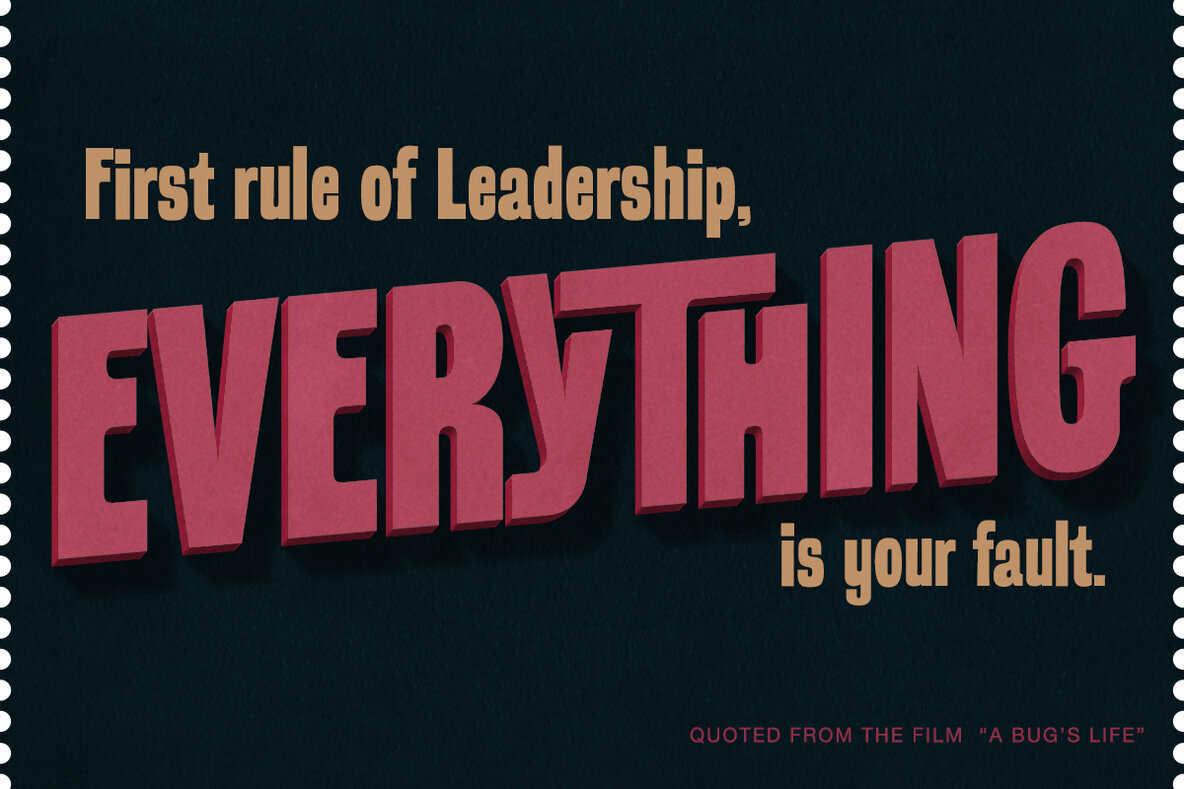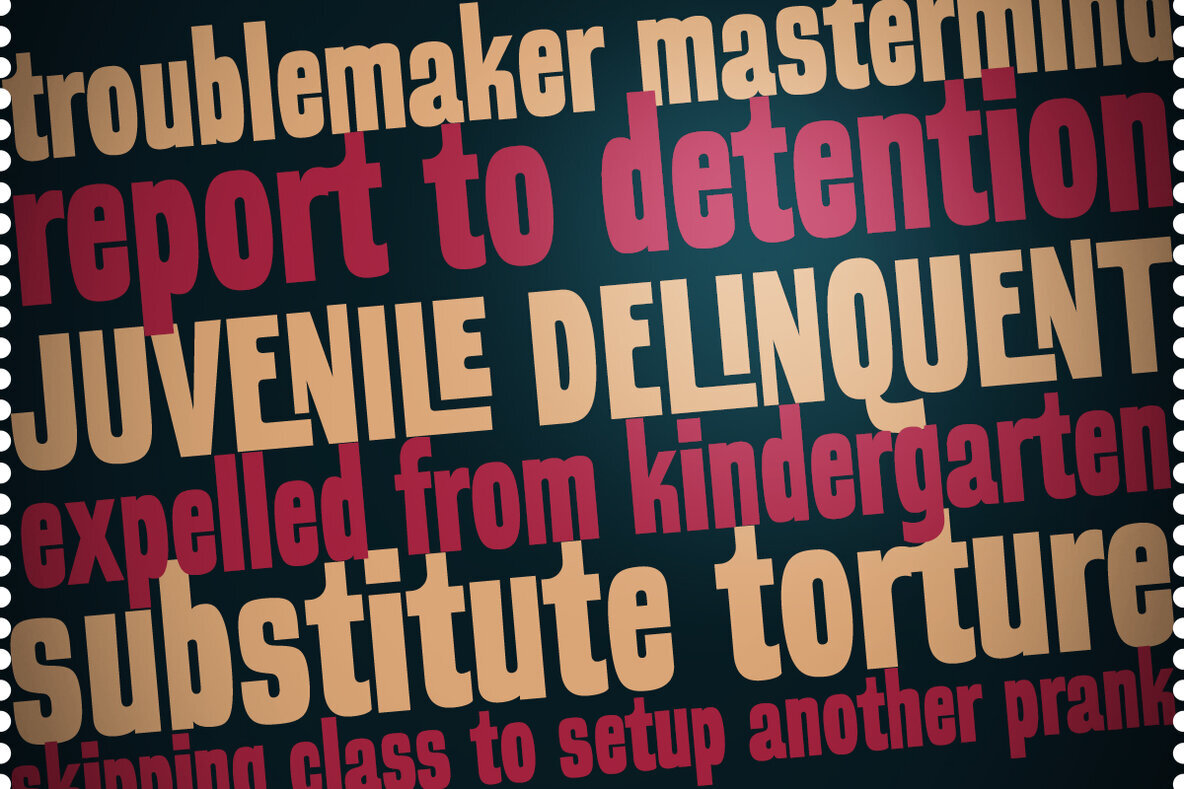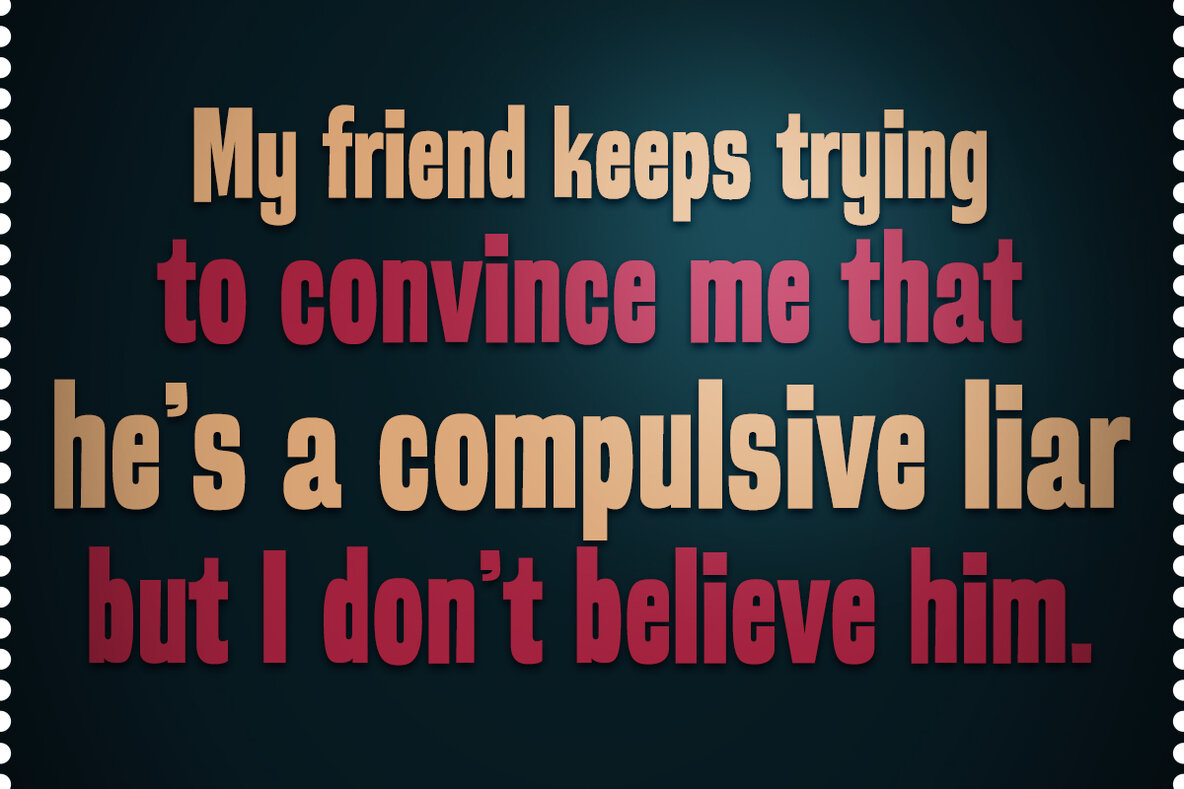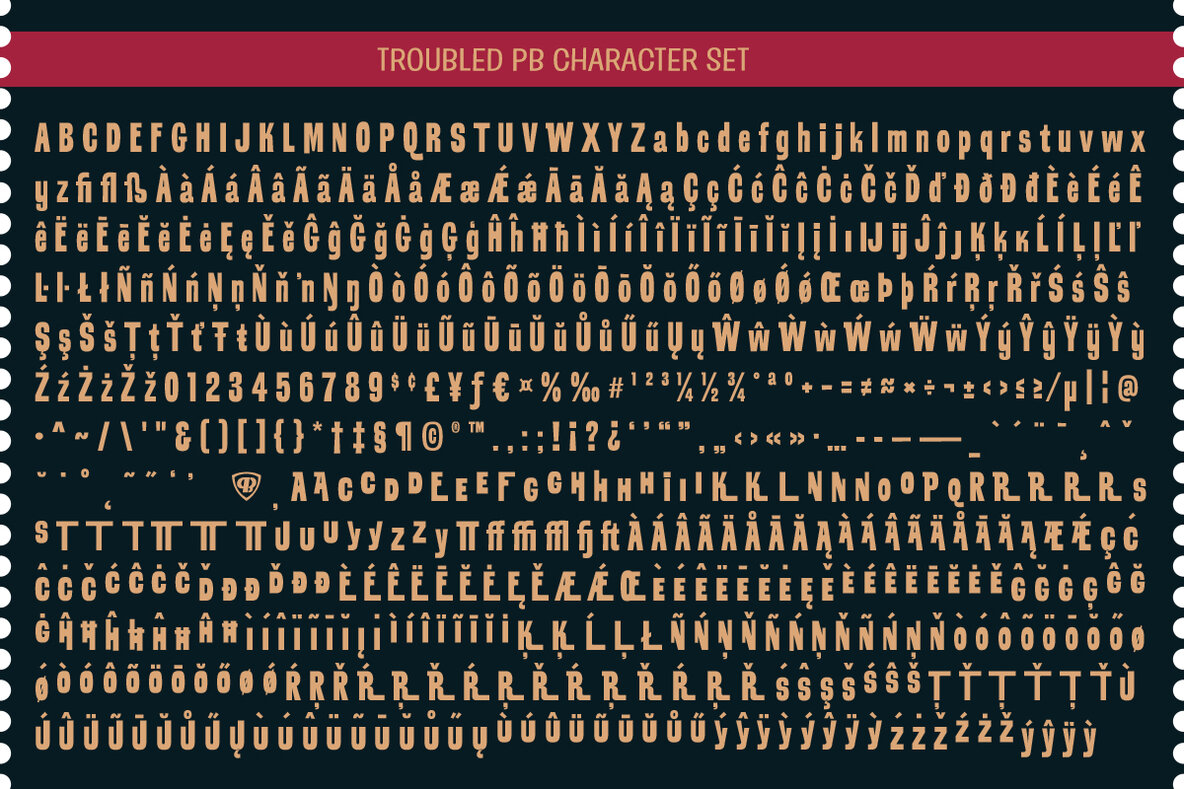
Troubled Font
Troubled PB
Troubled PB is a distinct and playful typeface that brings the charm of vintage pulp paperbacks to life. Featuring a variety of auto-ligatures, it's designed to create intriguing letterform combinations, especially in all-caps settings. This unique stylistic feature makes it an ideal choice for projects that call for a retro or whimsical touch, such as children's book typesetting, candy and toy packaging, or festive birthday invitations. The typeface's offbeat appeal naturally draws attention, making it perfect for headlines and other prominent text elements.
In addition to its dynamic all-caps ligatures, Troubled PB offers a straightforward and casual lowercase typesetting. The light animated feel of the lowercase letters lends itself nicely to small bodies of text when a more understated tone is desired. This versatility ensures that the typeface is suited for a broad range of design needs, from cheerful and child-friendly projects to designs that evoke nostalgia for the aesthetics of classic pulp novels. Whether used for headlines or body text, Troubled PB provides a distinctive character that enriches any creative endeavor.